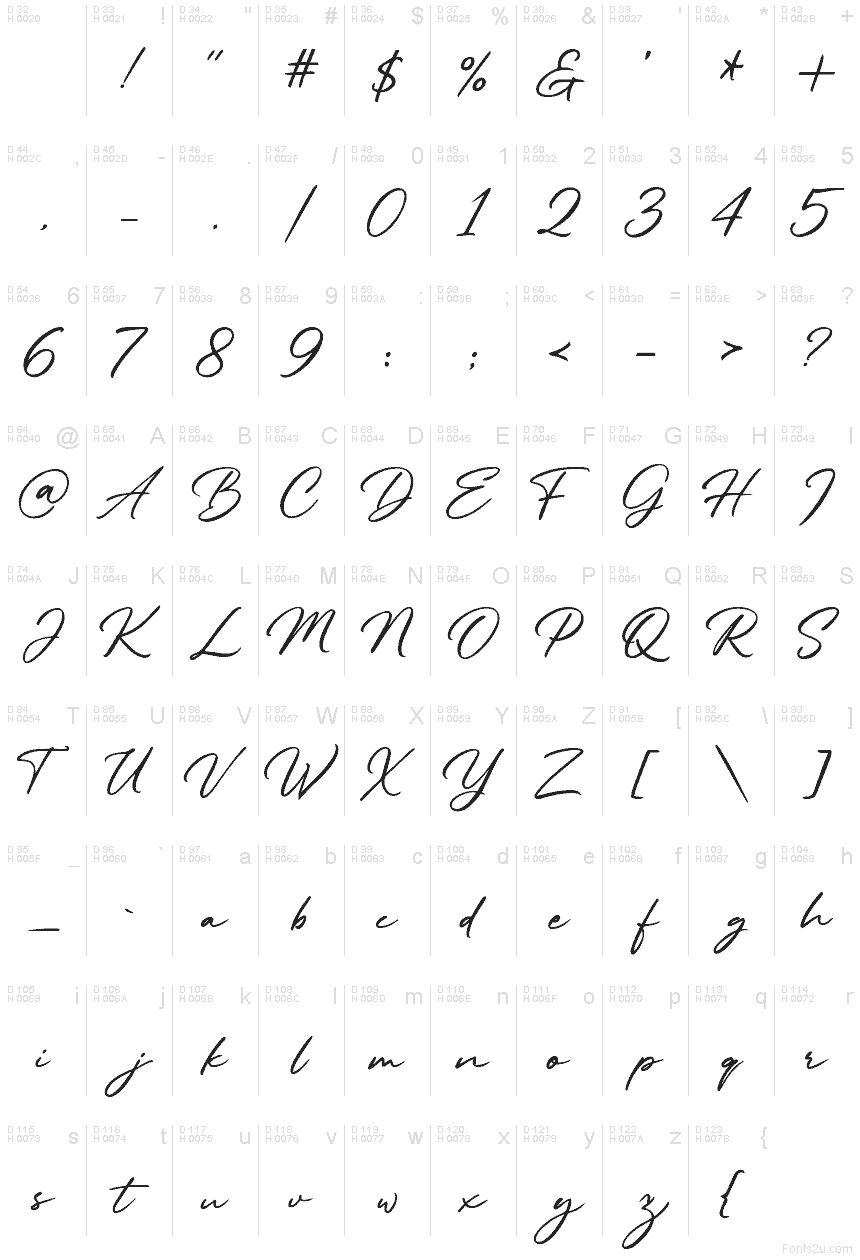
Floralis Couture
Floralis Couture font by BlackFridayFont FMF is a free handwritten signature script font that carries runway poise. Its gentle slant, fluid connections, and lightly inky texture read like a confident designer’s autograph—sleek, airy, and poised without fuss. The rhythm is even and the spacing is generous, so it keeps that couture look while staying legible on screens and small labels.
Using Floralis Couture, branding for fashion boutiques, beauty packaging, wedding suites, social banners, magazine mastheads, and upscale gift tags all gain a quiet, high-end whisper. This free font shines on logos and short headlines; keep copy concise and give it room to breathe. For balance, pair it with a clean neo-grotesque sans in small caps.